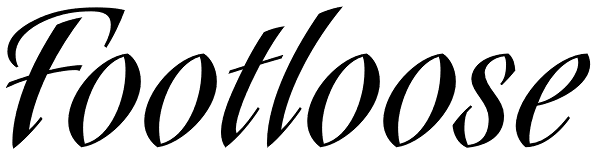
Footloose
Footloose was a work in progress when its original designer, my friend and colleague Bob Alonso, passed away. Back then just 14 lowercase letters were designed so far. Several years have since gone by, but lately I took on the task of developing...